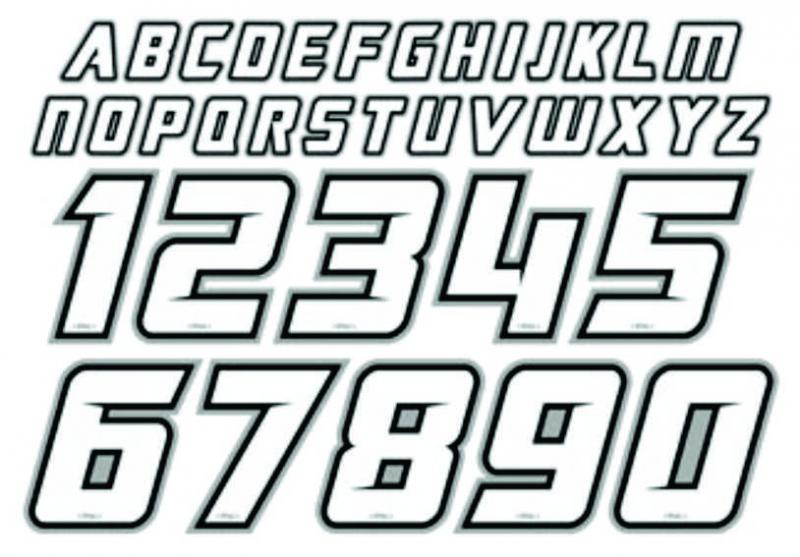
Help with font
Any ideas?
Looks like iron on motor-cross lettering. You probably won't find a font match for it.
Looks pretty simply to recreate in vector though. Did you need it for a lot of type? Just limited characters?